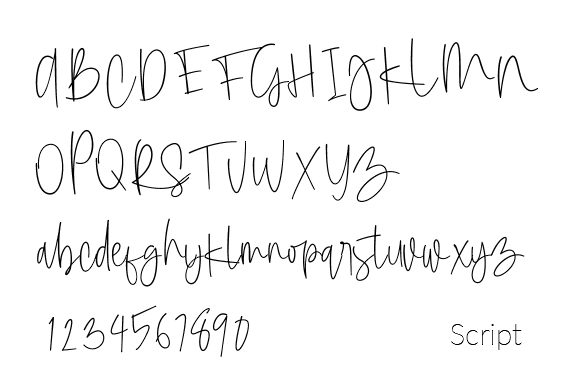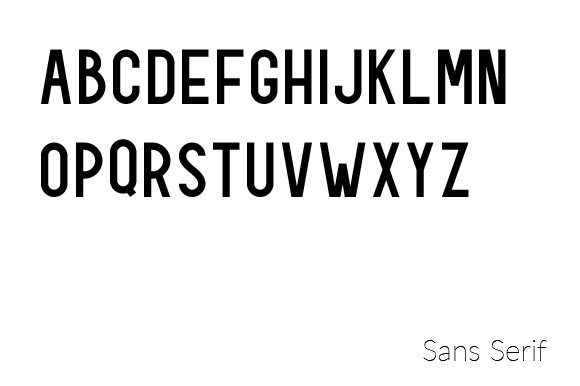
Introduction to Mont Ambassador Duo Font
Mont ambassador is a beautiful high fashion font duo with a contemporary feel.
Get inspired by its lighthearted feel .
Key Features of Mont Ambassador Duo Font
Why Choose Mont Ambassador Duo Font?